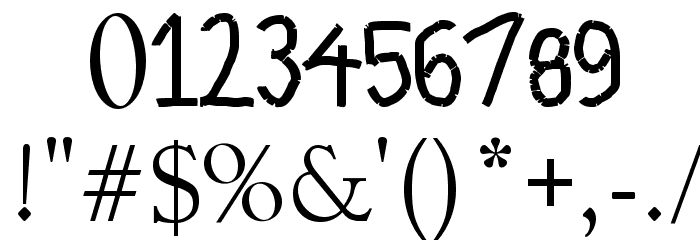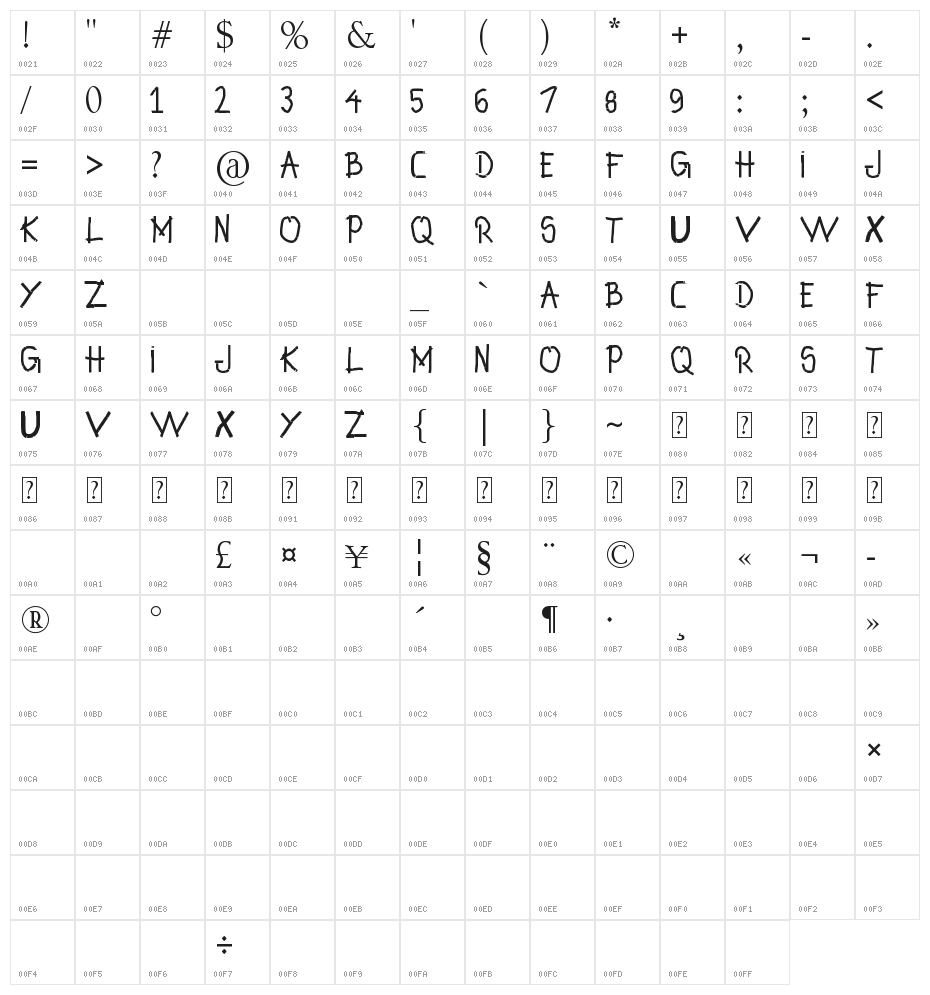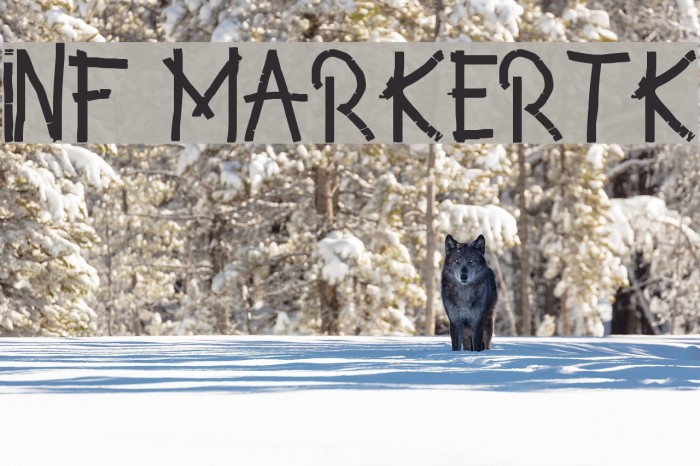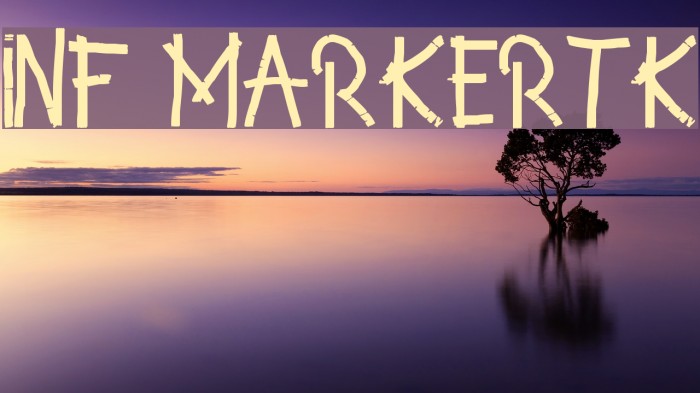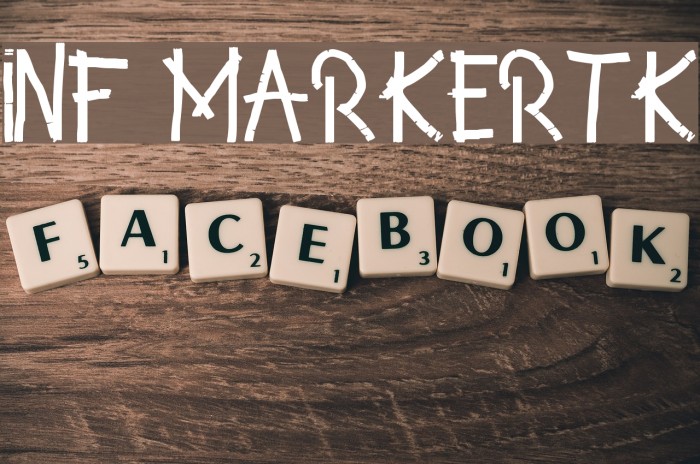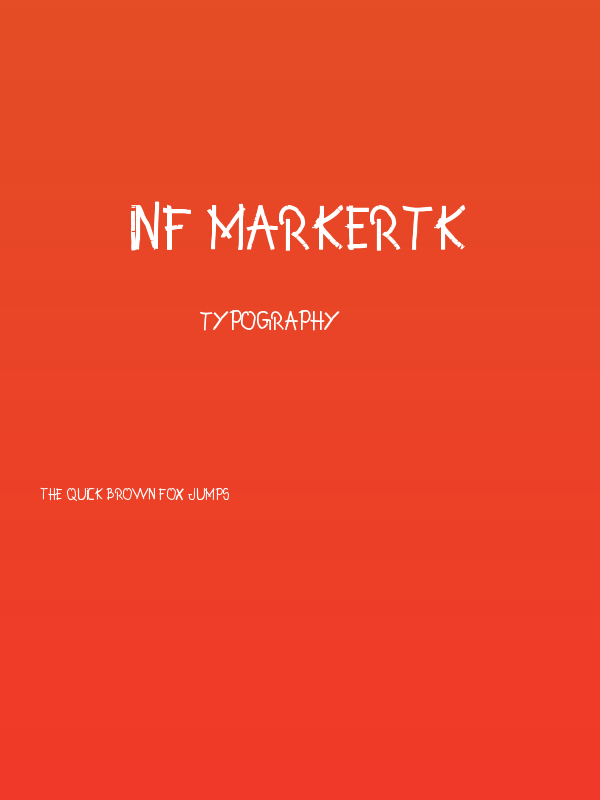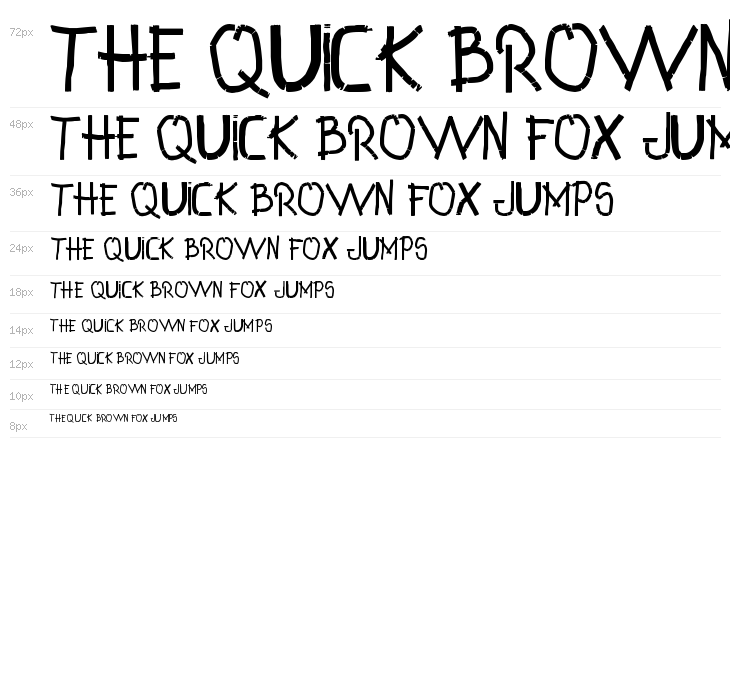
INF MarkerTK Font
INF MarkerTK Description
This font exhibits a bold and dynamic style, reminiscent of hand-drawn marker strokes. The characters have a rough, textured appearance, giving them a casual and informal feel. The uppercase and lowercase letters maintain a consistent style, with slightly irregular edges that add to the hand-crafted look. The numerals and special characters follow the same design principles, ensuring a cohesive appearance across all glyphs. This font's unique aesthetic makes it stand out, perfect for projects that require a personal touch or a creative flair.
Proposed ProjectsIdeal for creative projects such as posters, flyers, and artistic branding. Suitable for designs that aim to convey a personal or handmade feel.